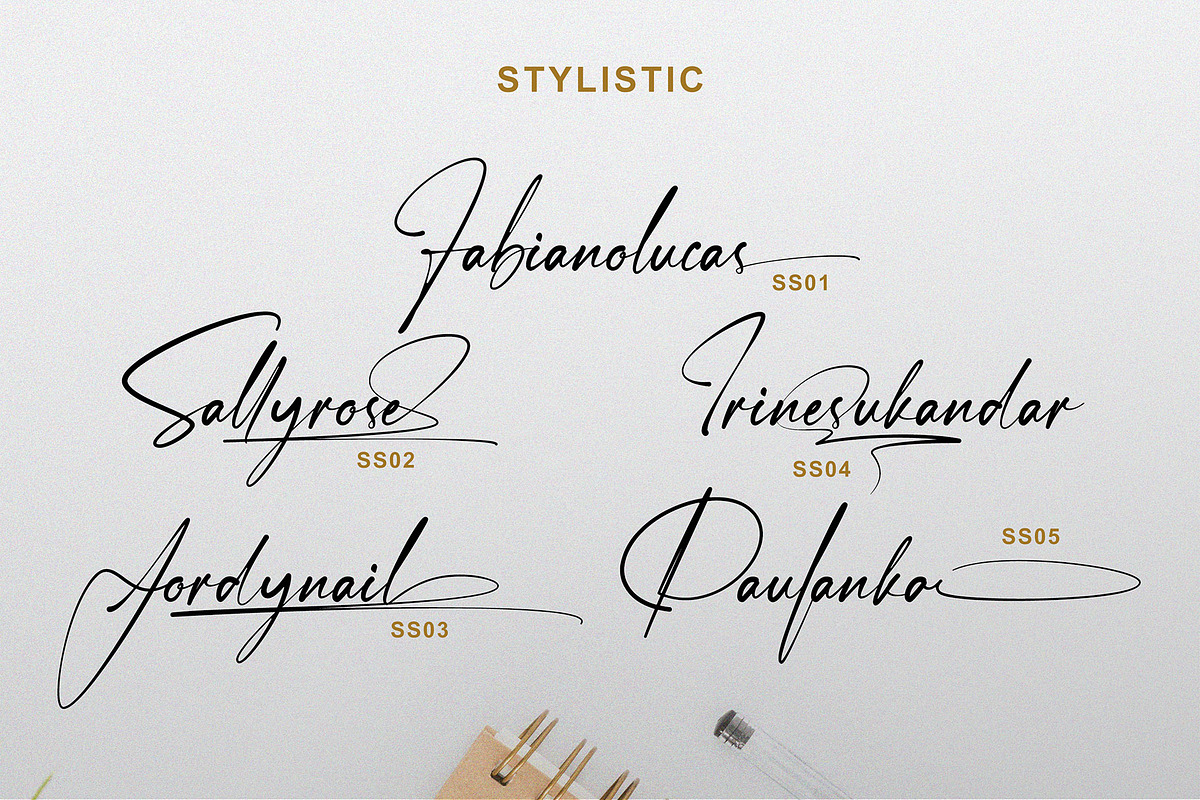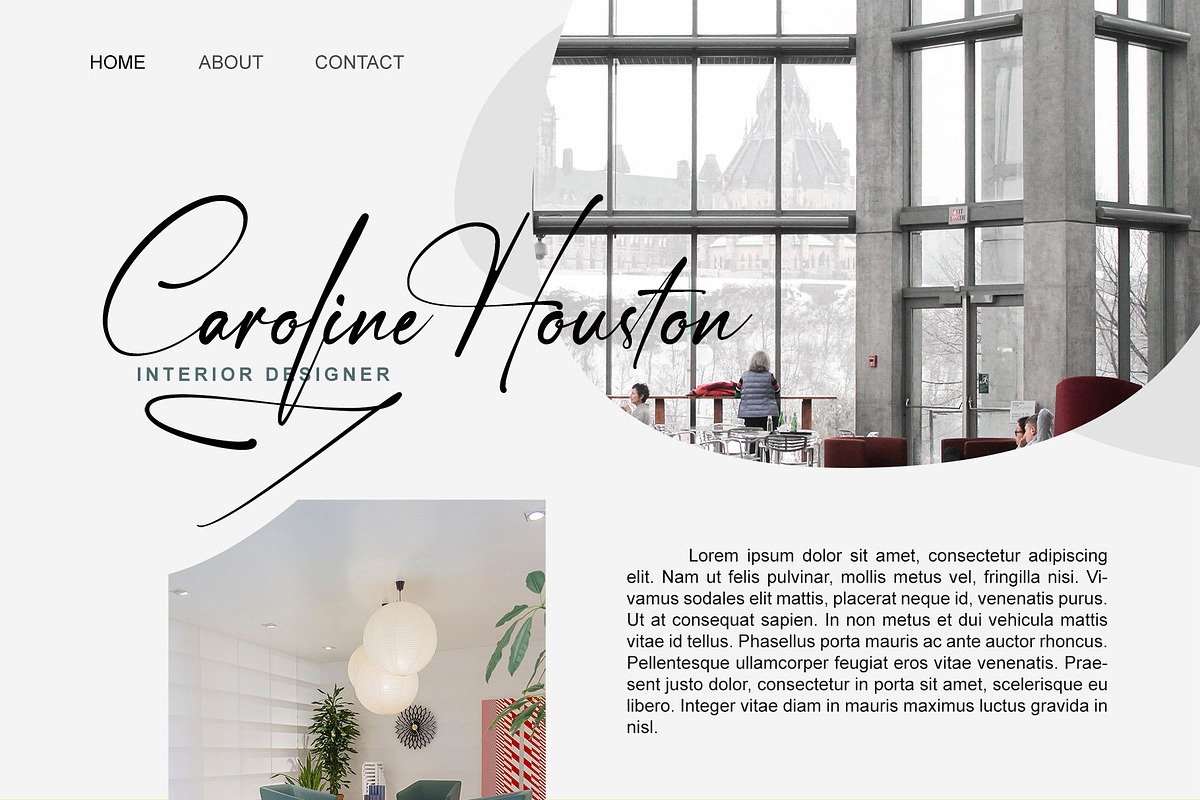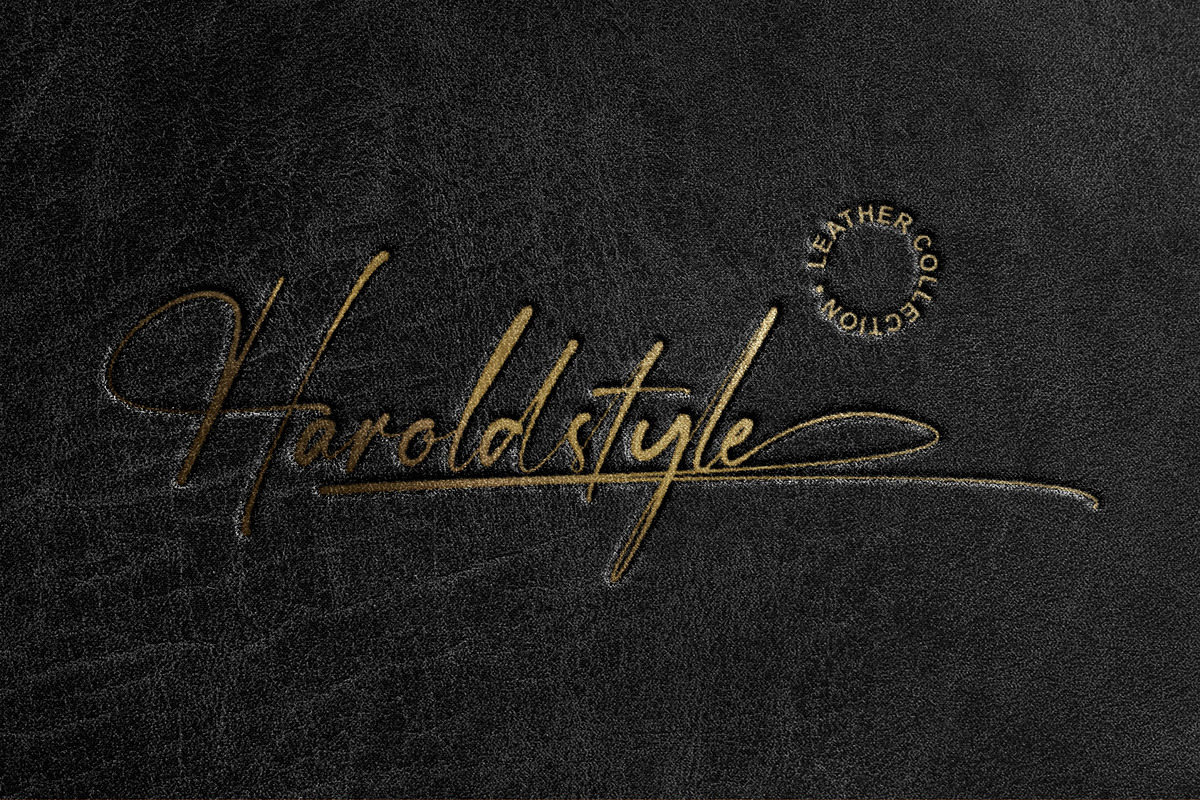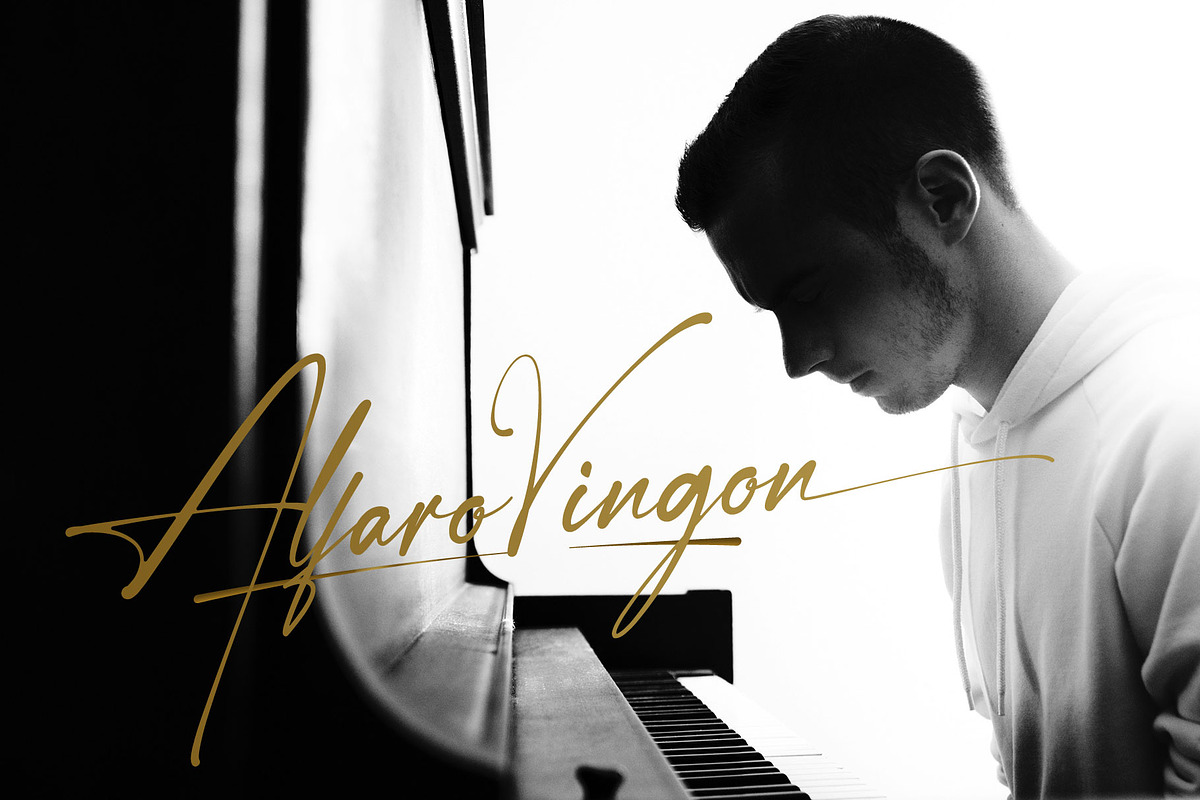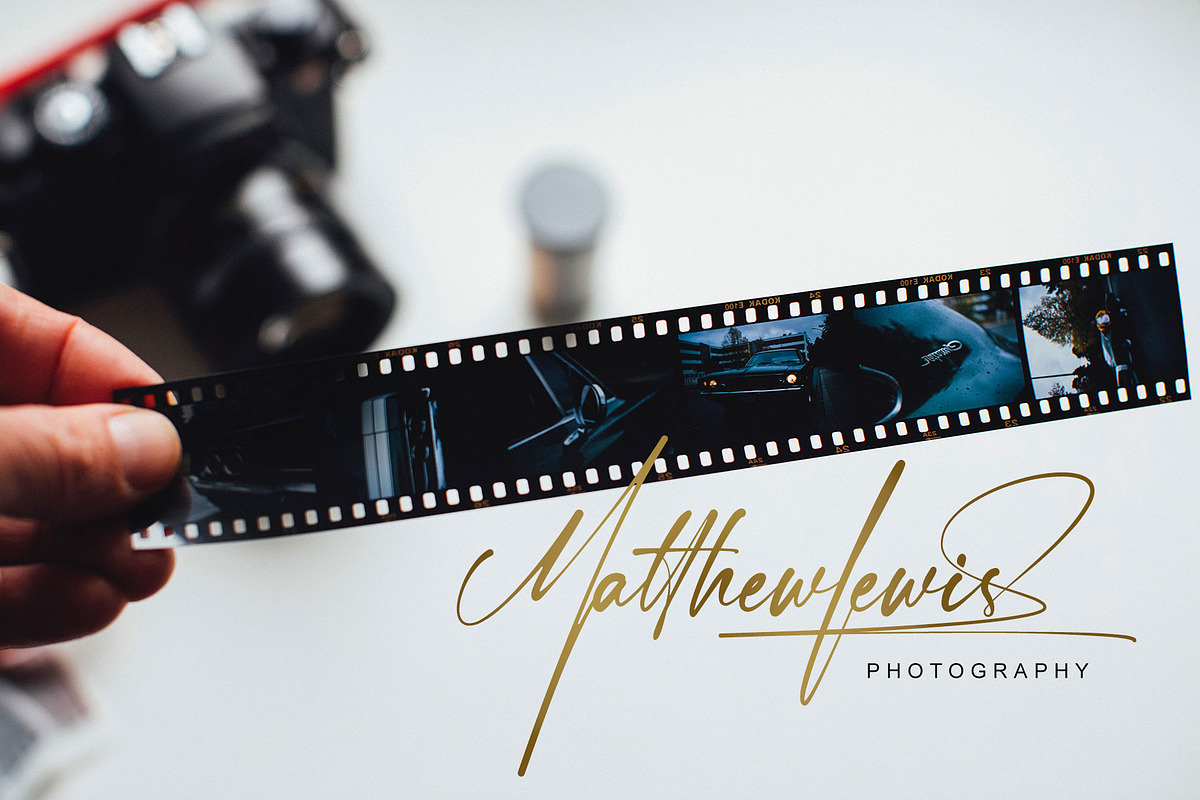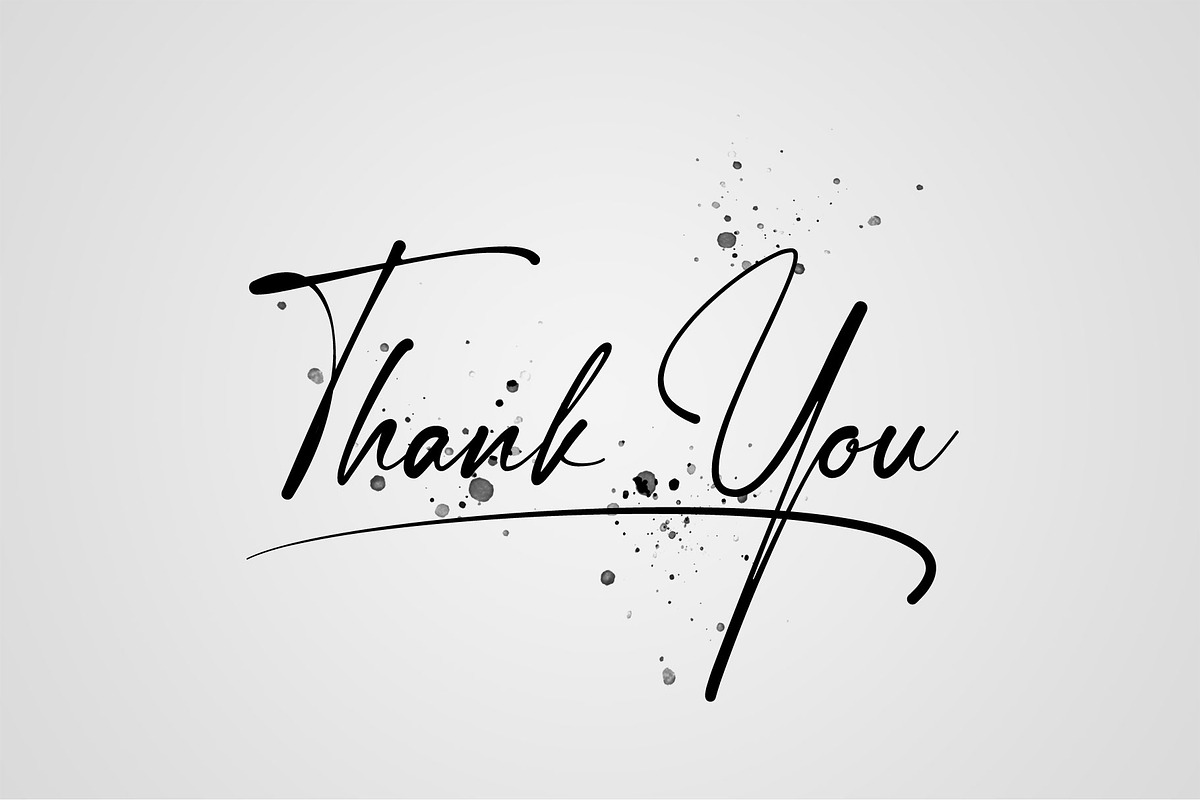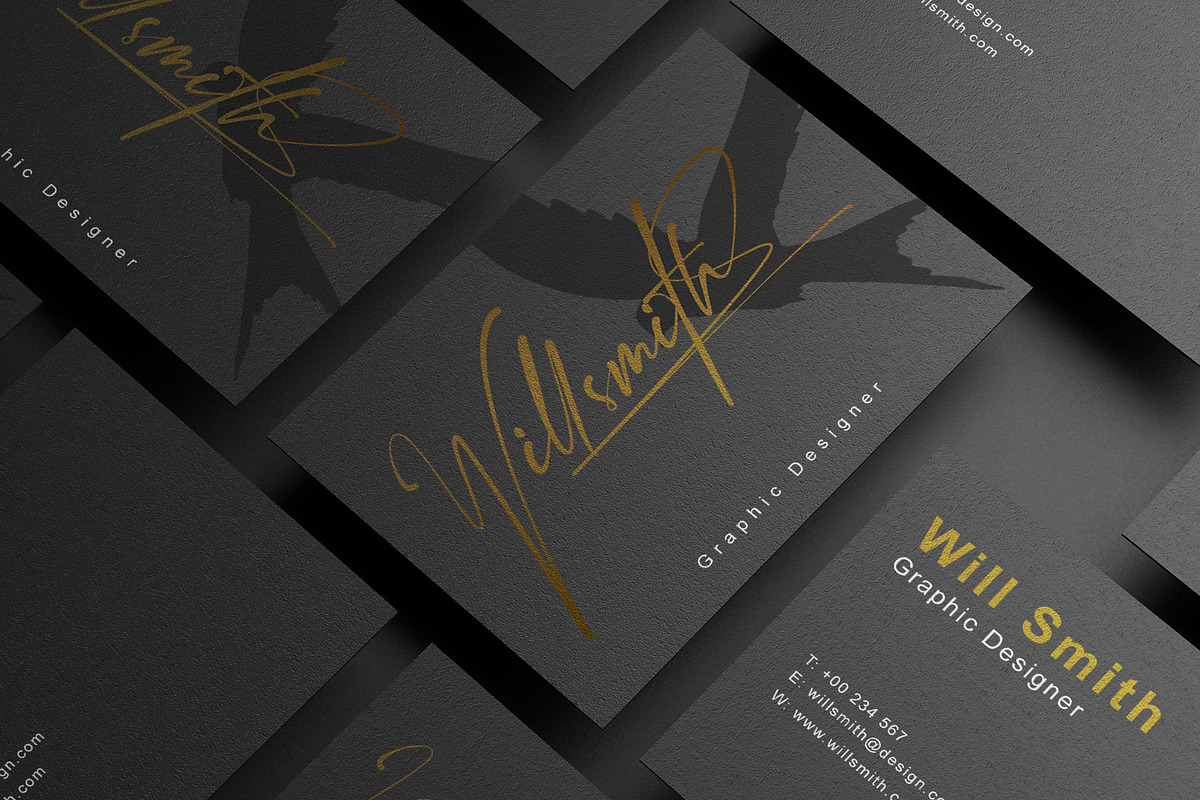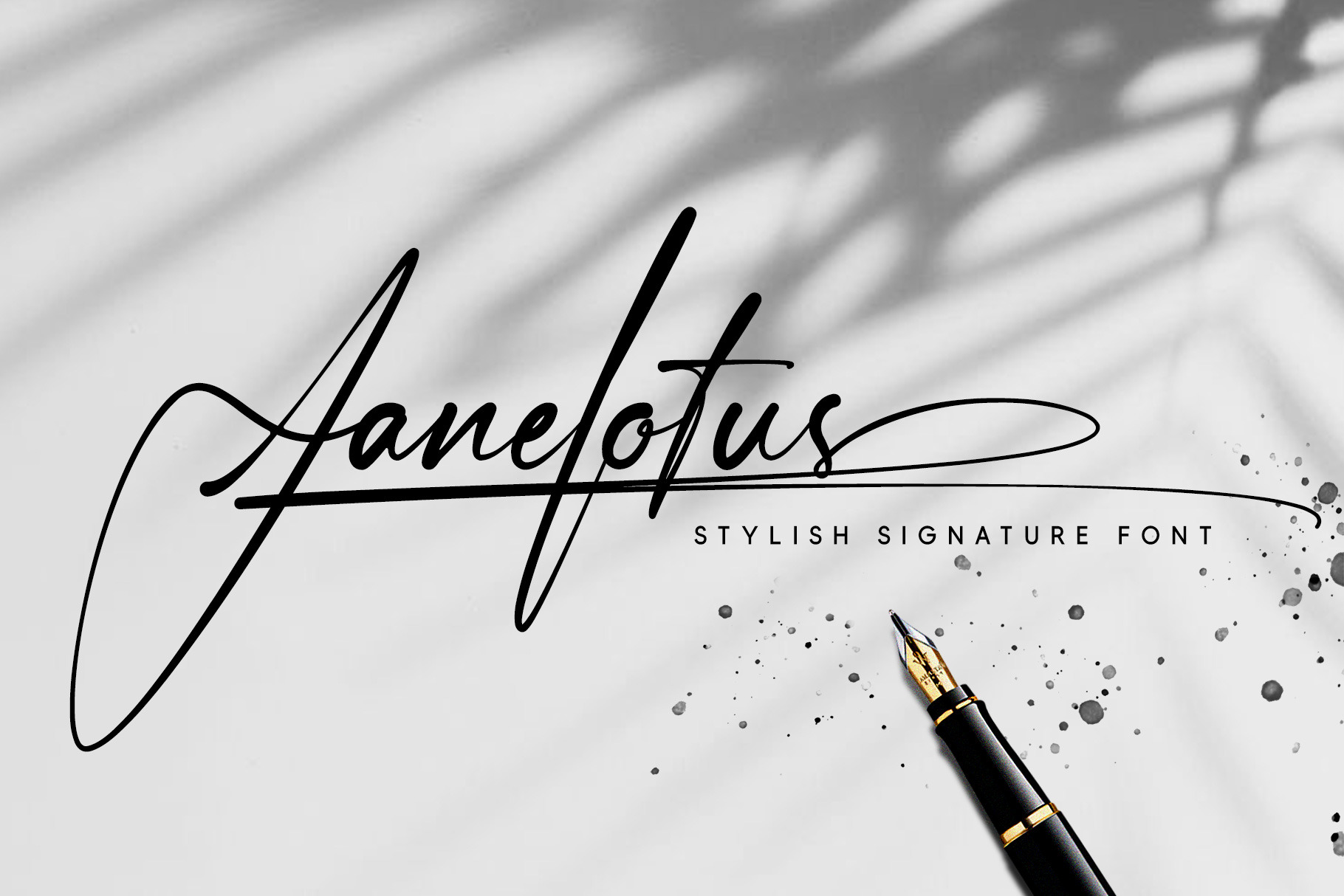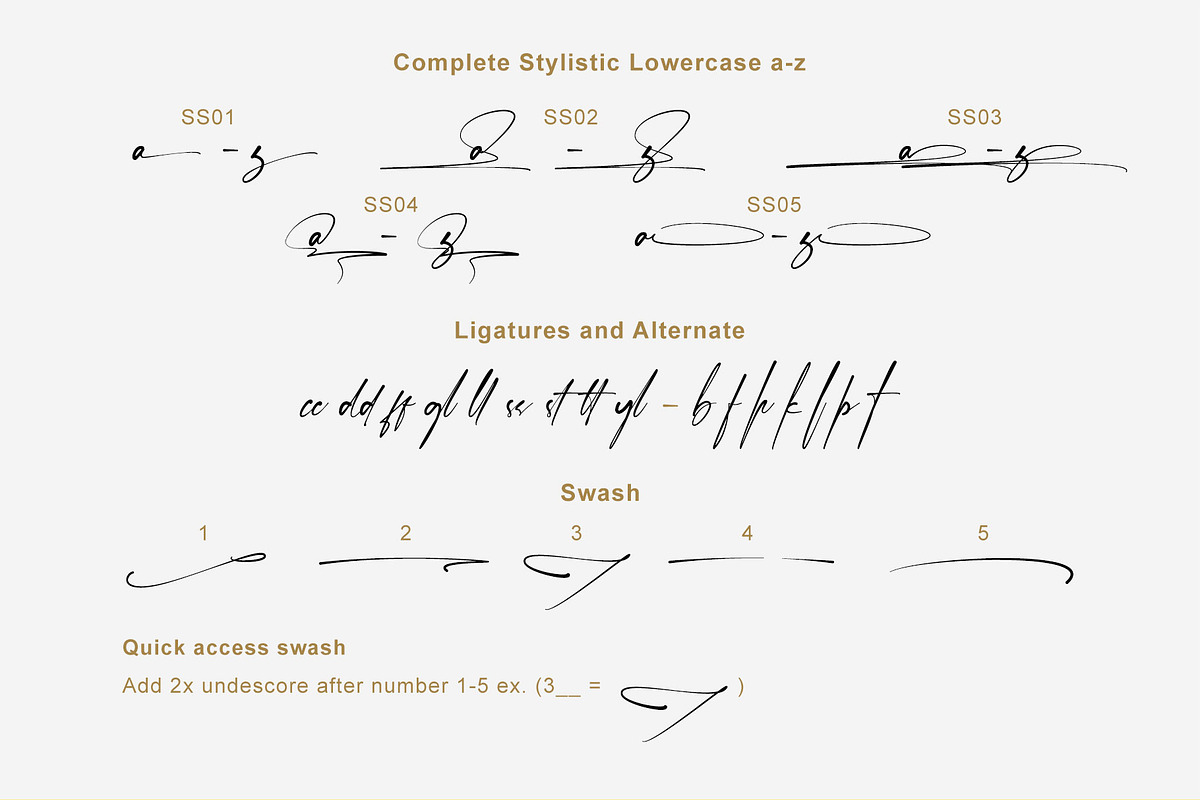
Janelotus | Signature Font
Janelotus is a perfect signature font, with a natural & stylish flow. Janelotus Font is perfect for many different project such as logos & branding, invitation, stationery, wedding designs, social media posts, advertisements, product packaging, product designs, label, photography, watermark, special events or anything.
- Stylistic Set
Quick access swash with ligature:
- Add 2x underscore after number 1-5
- Example: 1__